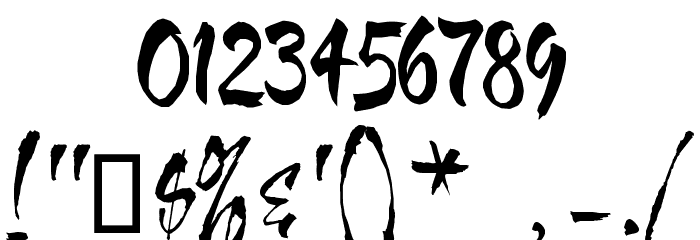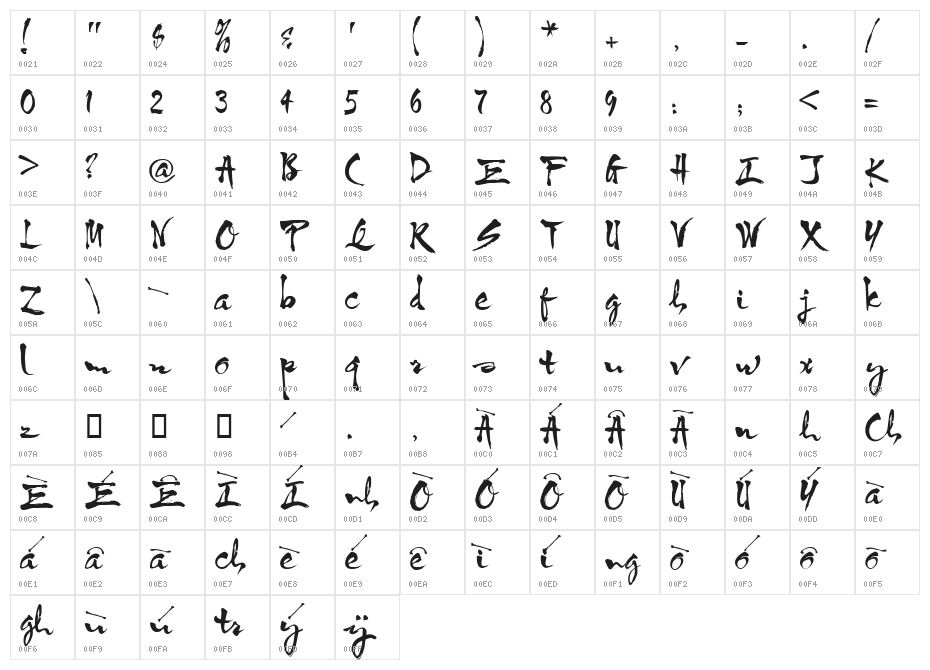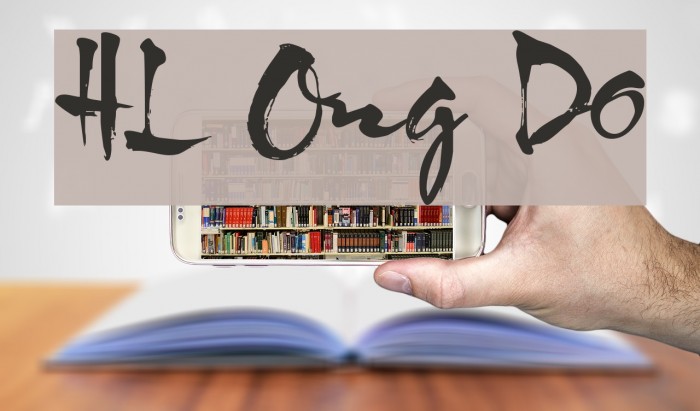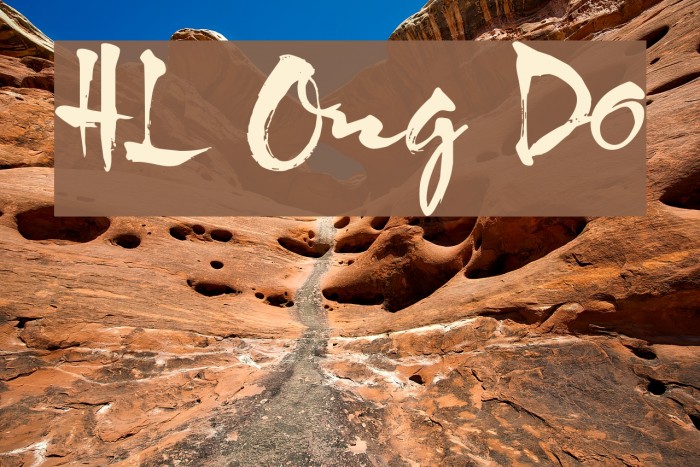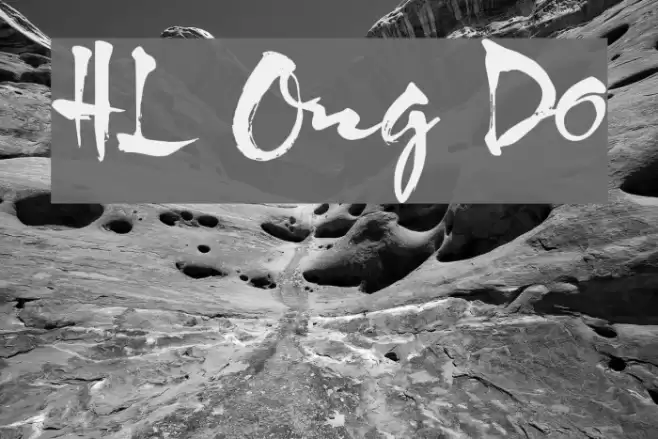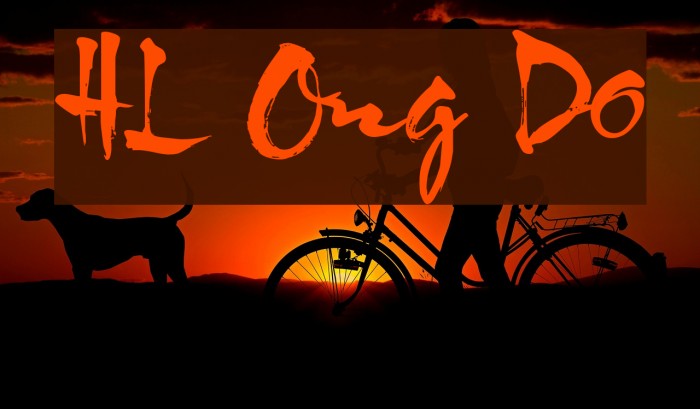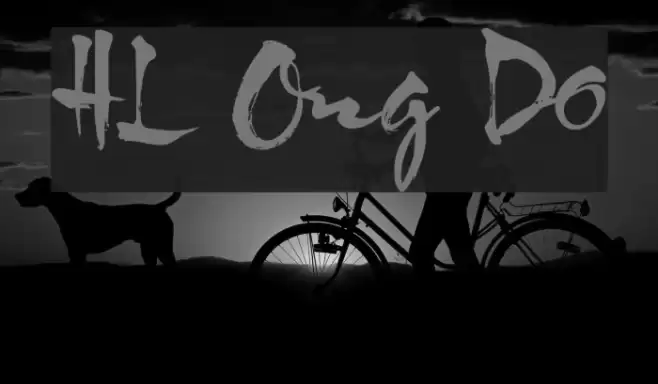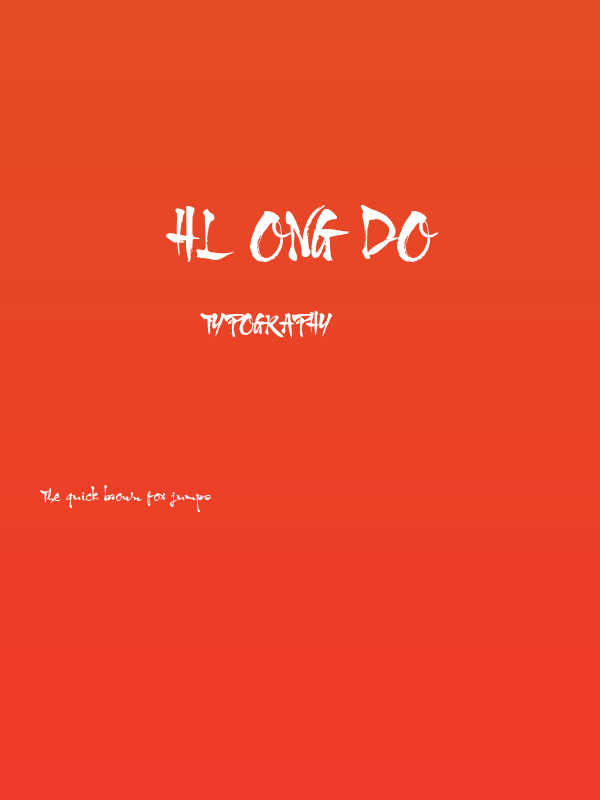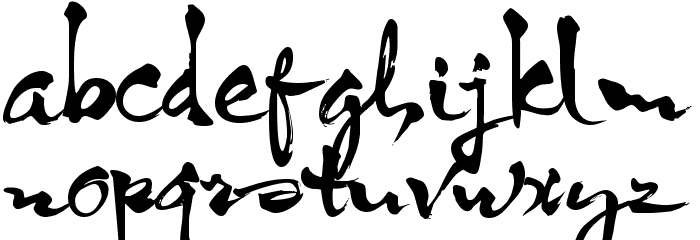
HL Ong Do Font
HL Ong Do Description
This font exhibits a bold and expressive style, characterized by its brush-like strokes and dynamic flow. The uppercase letters are particularly striking, with dramatic curves and varying line thickness that convey a sense of movement and energy. The lowercase letters maintain this fluidity, offering a cohesive look that complements the uppercase set. Numbers and special characters are equally bold, ensuring consistency across all elements. The overall appearance is artistic and somewhat rebellious, making it ideal for projects that require a strong visual impact.
| Proposed Projects | Ideal for artistic projects, posters, album covers, and branding that requires a bold statement. |